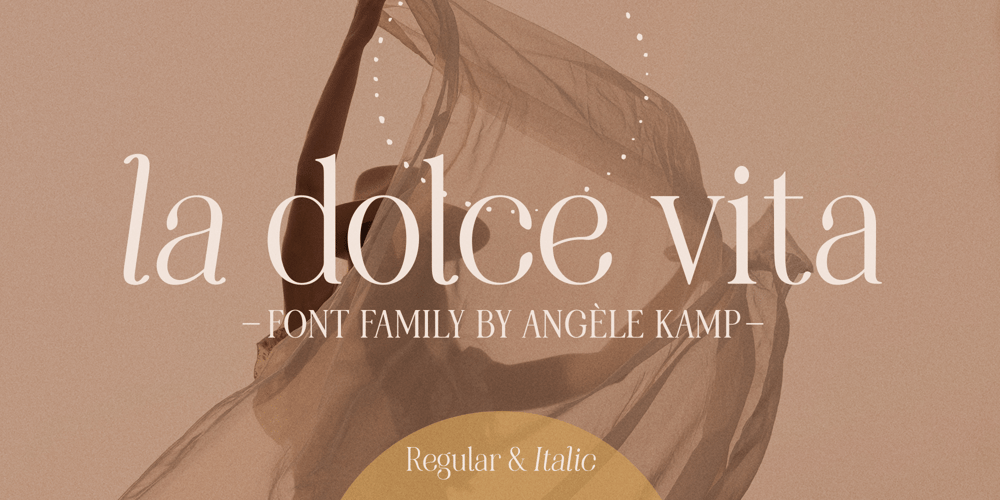
La Dolce Vita Font Family was designed by Angele Kamp and published by Angele Kamp. La Dolce Vita contains 4 styles and family package options. La Dolce Vita is an elegant serif font family with a feminine style. This beautiful collection will instantly add class to all of your design projects. This stylish font family is timeless and can not be missed in your font collection. It is the perfect branding font and will help you to easily create logos, wedding designs, and all other commercial projects.